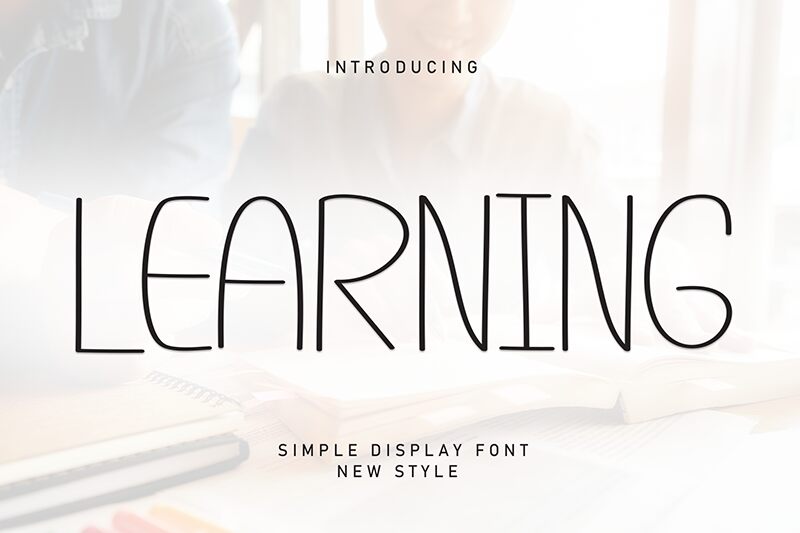
Learning
Learning font is a modern, light handwritten font by Andi Moz. It features a minimalist, geometric design that creates clean and sophisticated typography every time it’s used. With its subtle elements and decorations, this free handwritten font is an excellent addition to all creative projects that call for an informal personal touch.